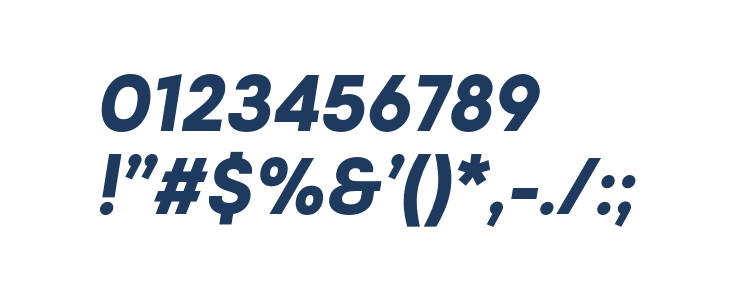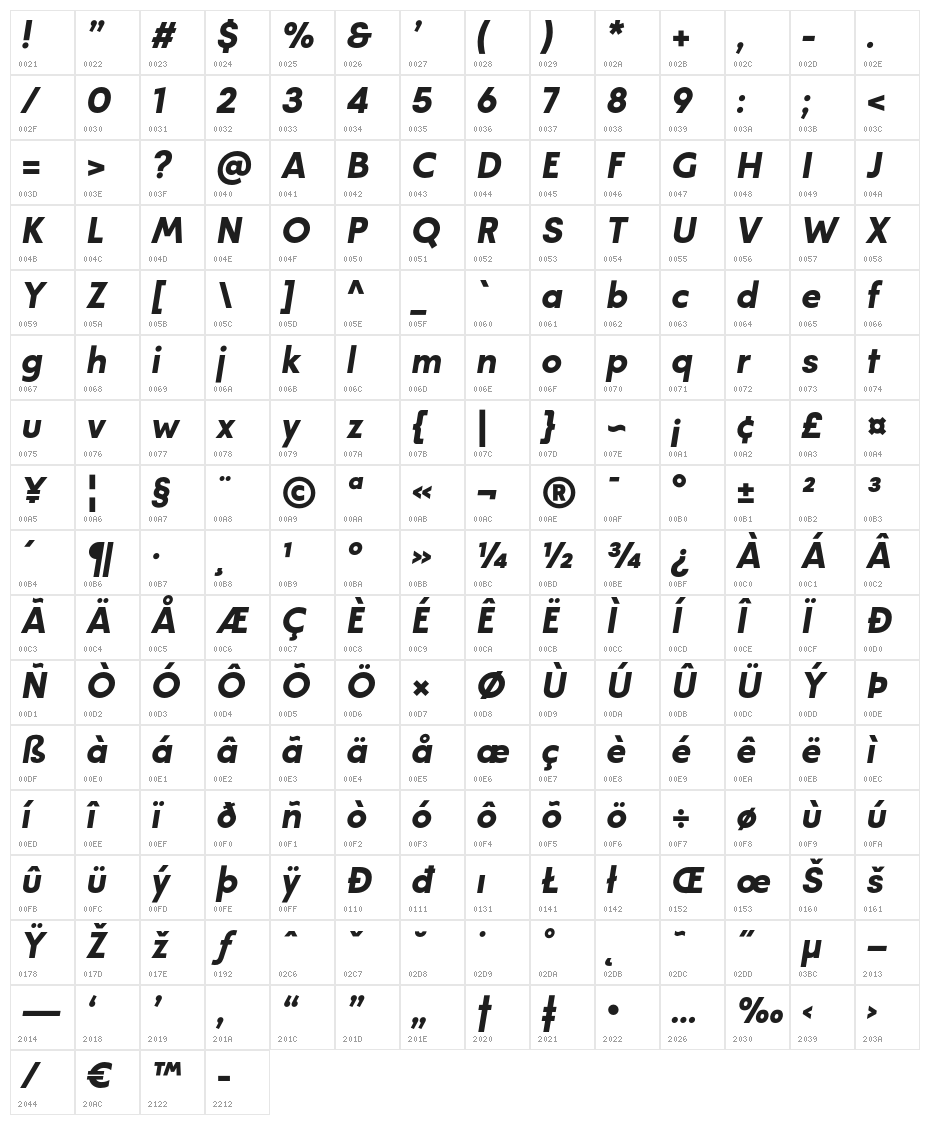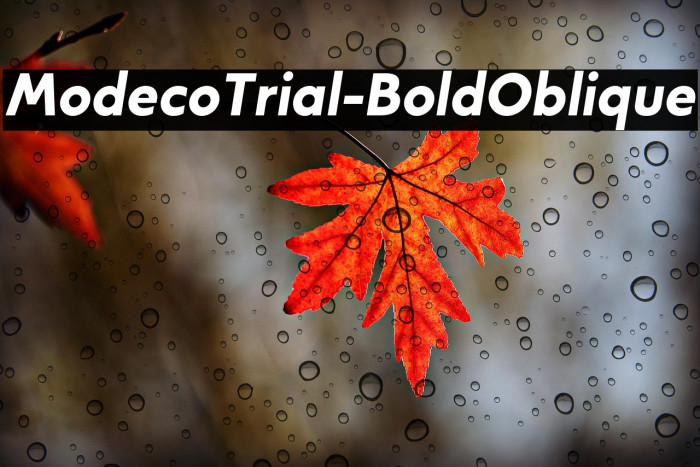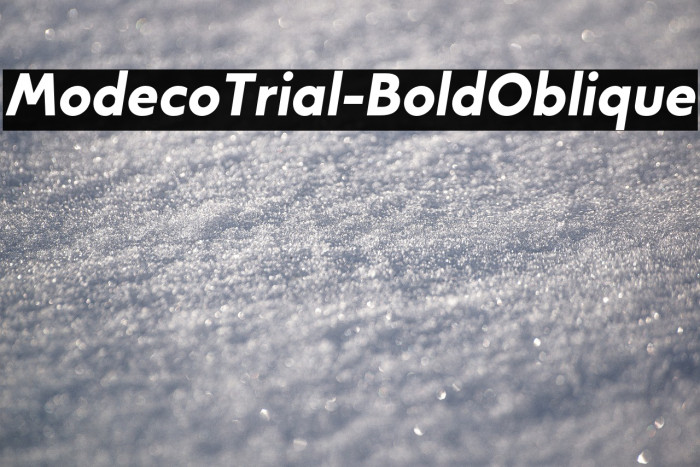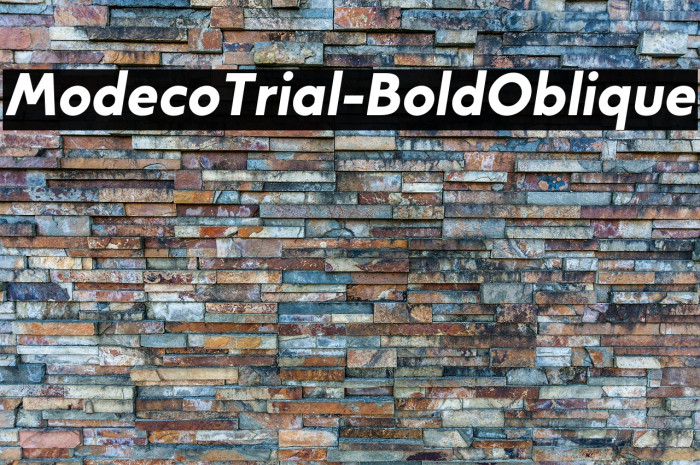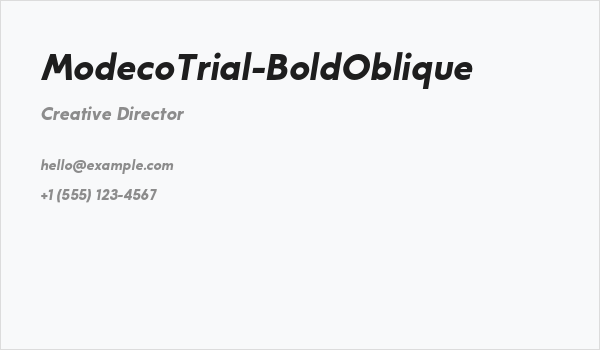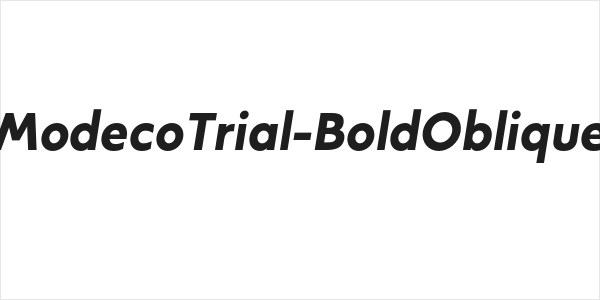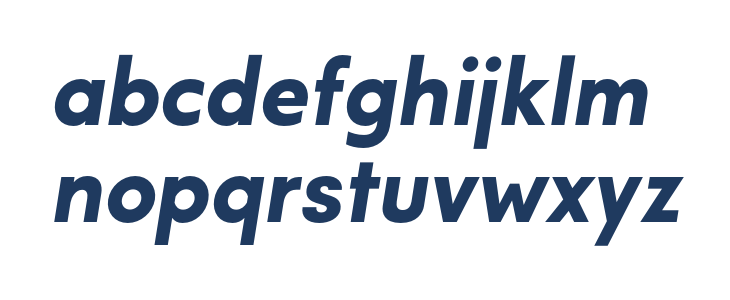
ModecoTrial-BoldOblique Font
ModecoTrial-BoldOblique Description
This font features a bold and oblique style, characterized by its strong and assertive presence. The letters are thick and slanted, giving a dynamic and modern feel. The uppercase and lowercase letters maintain a consistent weight, ensuring readability while adding a touch of flair. The numerals are equally bold, matching the overall aesthetic of the font. Special characters are designed with the same boldness, ensuring uniformity across all glyphs. This font is ideal for making a statement, with its clear and impactful design.
| Proposed Projects | Ideal for branding, advertising, headlines, and any project requiring a strong visual impact. |